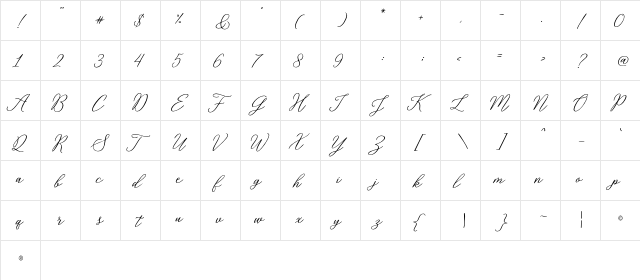
Rosabelia SLDT Regular
| Foundry | Solidtype |
| Designer | Solidtype |
Design Context for Rosabelia SLDT Typeface
Rosabelia SLDT is a composed and adaptable typeface that performs quietly and consistently across a wide range of design contexts.